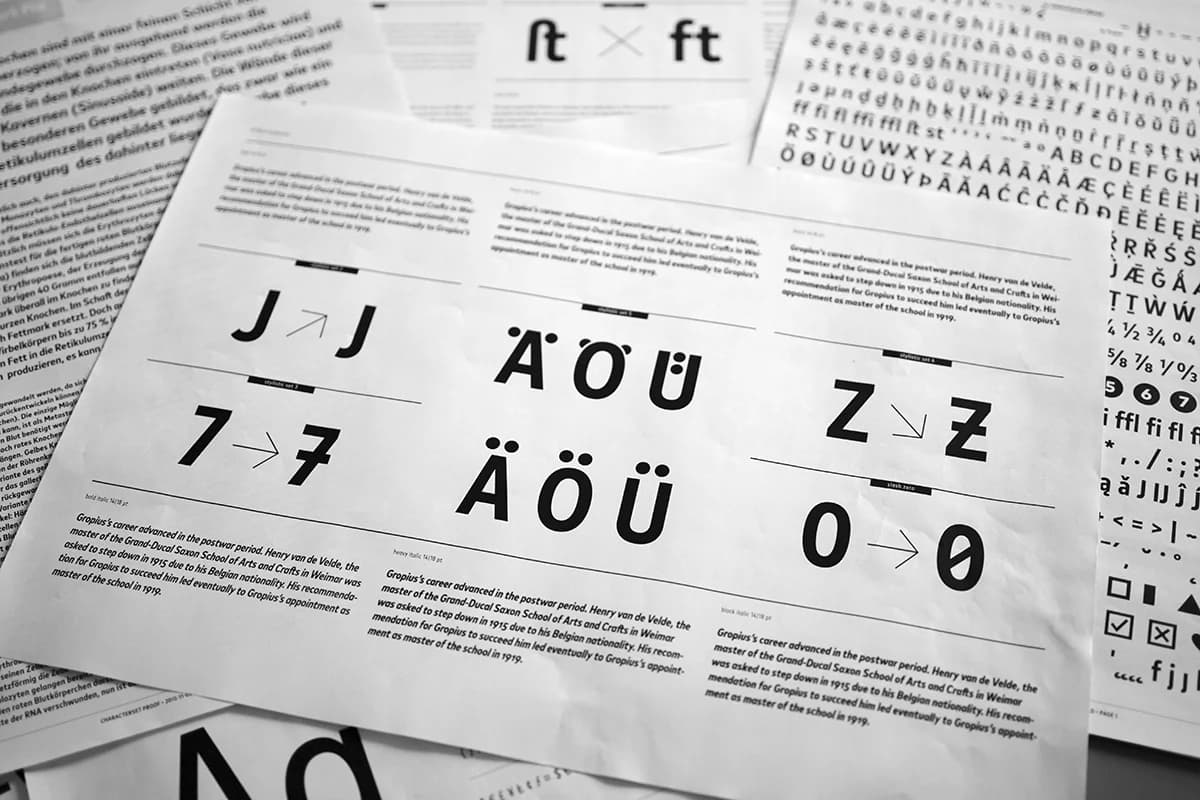
FF Mark Condensed
HvD Fonts · Hannes von Döhren, Christoph Koeberlin, Eva Seasonal, Font Font · 2013
The condensed cut of FF Mark, a geometric sans designed for tight settings while retaining the family's clean circular geometry.
FF Mark Condensed narrows the proportions of the core FF Mark geometric sans, making it suited to headlines, tables and space-constrained layouts without sacrificing legibility. The family was developed by Hannes von Döhren and Christoph Koeberlin and draws on the tradition of mid-century geometric sans-serifs, with optically corrected curves that prevent the mechanical stiffness common to strictly geometric constructions. Multiple weights with italics give it flexibility across both display and text applications.
FF Mark is a geometric sans-serif with strong circular forms influenced by classic geometric typefaces; the Condensed variant maintains those geometric proportions in a narrower width suitable for space-constrained settings.